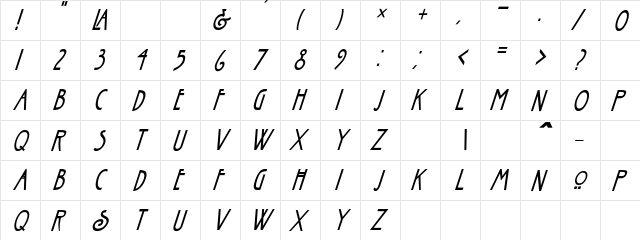
Esmount-Condens Regular
Design Context for Esmount-Condens Typeface
Esmount-Condens takes a measured approach to typography — its balanced proportions and neutral character make it a reliable workhorse for both digital and print work. Its narrow stance lets it pack a punch even in space-constrained designs.